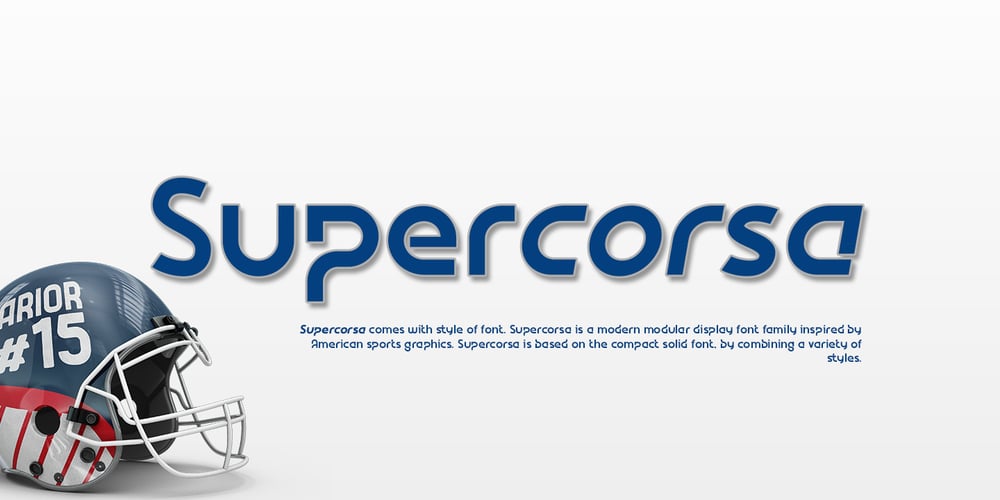
Supercorsa Font Family was designed by Muhammad Afif Ersya and published by Mevstory Studio. Supercorsa contains 2 styles and family package options. Introducing new font Supercorsa comes with style of font. Supercorsa is a modern modular display font family inspired by American sports graphics. Supercorsa is based on the compact solid font, by combining a variety of styles.Suitable for Logo especialy logo sports, greeting cards, quotes, posters, branding, name card, stationary, design title, blog header, art quote, typography.You want to make a greeting card or a package design, or even a brand identity, craft design, any DIY project, book title, pop, vintage design, retro design or any purpose to make your art / design project look pretty and trendy? Feel free to play with Supercorsa !Product Content : Supercorsa Regular Supercorsa Italic Features : Uppercase & Lowercase Standard Ligatures Numerals & Punctuations (OpenType Standard) Accents (Multilingual characters) PUA Encoded No special software is required to use Supercorsa. Please contact us if you have any questions.Enjoy Crafting and thanks for supporting us! :)Lettercorner Studio